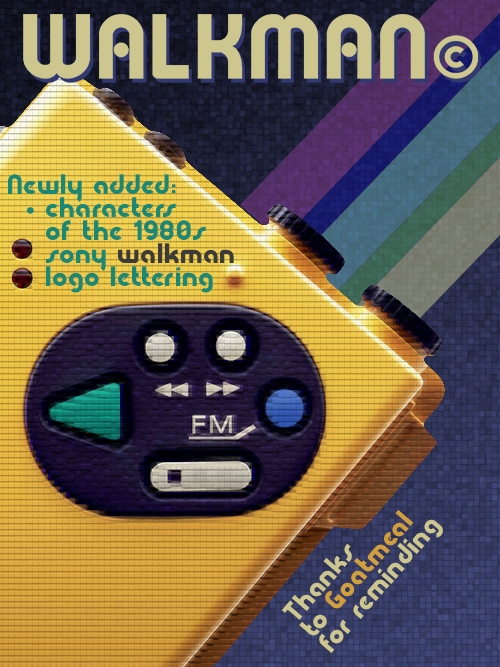
• BLAUHAUS (Plus) - 'Bauhaus'-inspired design
This is the 'Pro' version in the BLAUHAUS family, and instead to the first version this includes a full uppercase set as well. The glyph alternatives that previously occupied the (Uc) string has been relocated to the "Halfwidth and Fullwidth Forms" Unicode block.
In addition to that a whole bunch of extra glyph alernatives, numerous symbols, dingbats, arrows and other elements are included as well.
I do realize it is far from perfect, but since it was designed on a very tiny grid and without filters, a whole lot of available realestate to house bricks wasn't a luxury for this project.
Nonetheless I've tried to put in plenty of diversity, and I think the underlying constraining effect as result of the limitations from not utilizing 'brick size'-filters works out just fine in preserving a certain degree of minimalism.
5/8 weight, no filters and only 4/8 nudging within FS-editor posed another dificulty, but despite all these challenges it was a very fun project to puzzle with...
I keep having this killer curiosity as to what this potentially could look like when it made proper use of 2:2 brick size filters.
The very first version I did way back in 2019 essentially started out as a personal study into small grid designs and composite bricks. The idea back then was to craft the most complex geometry possible without the use of any "Expert Mode" functions.
What this led to (for me unique at the time) was the creation of a font that was solely crafted from composite brick.
Not just a couple, but a stagering 272 composite bricks in total. Many of these bricks are quite intuitive and required careful thinkering with maths and geomtry.
As I explained there was no use of any "Expert Mode" functions, this means that the option to nudge a brick wasn't available either. Now this changes everything in respect to building complex fonts, since now in order to get every bits and pieces of a letter (such as: crossbars, intersections, curves and corners) alligned a precisly fitting composite brick needs to be tailor-made in order to do so. In terms of FS's limitations this means that the physical properties of FS's brick composition tool are fundamental as to how refined the geometry can become. In other words this is fundamental to how well the end result is going to look, since there is no option to further manicure shape or form other than within the 16-brick array of a composite grid.
I choose to do a Bauhaus style font because of the simplicity of the style in its pure geometric form.
The end result became a simple looking design with a 3 "bricks" Em-size inspired by Herbert Bayer's Universal alphabet that is pretty cool looking, but has some crucial compromises that had to be made due to FS's design limitations. Not terrible, but not quite perfect either.
But one very important byproduct from this limitations as described above was a huge collection of very intuitive custom brick compositions that offer seemless alignement and perfect fits, basically an extensive set of custom bricks that work in a very similar fashion as FS's default "Connect" bricks.
This brings me to the main reason for 2022's (Plus) version of the font (which is the font's current state that remains in up till this point). This modification introduced FS's "Expert Mode" functionality to the design in order to further manicure some of these compromised critical area's to see what refinements could be implemented to the original 2019 version. Now that the option to nudge a brick was available, new more complex geometric shapes suddenly became possible. This sparked an explosion of new characters and alternative forms, although now FS's editor was vastly more potent, it remained strongly limited by the 1:1 brick size filter setting. Nevertheless this made possible a very substantial update of the older font that allowed many new shaping capabilities.
Now, ever since I completed this 2022 version this idea keeps haunting me about what if the font was using 2:2 brick size filters, a version that takes advantage of the FS editor's full power.
So in prevent of tormenting myself any further the time has arrived to put some action in place where my personal demons lurk and started to convert this font into a 2:2 design.